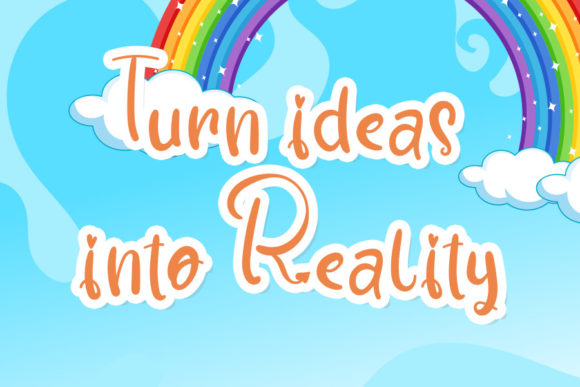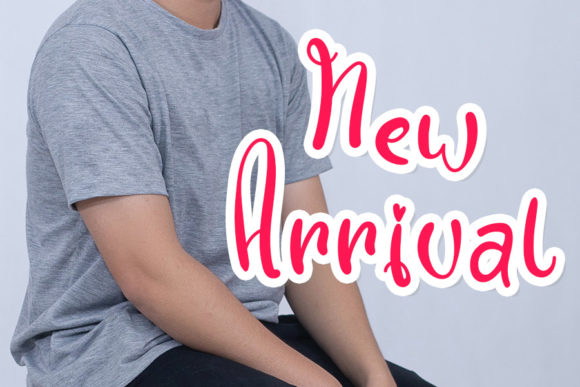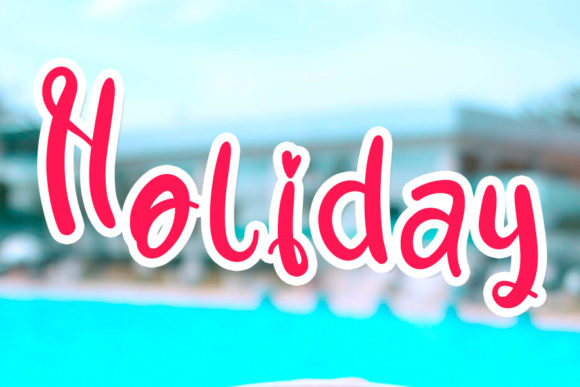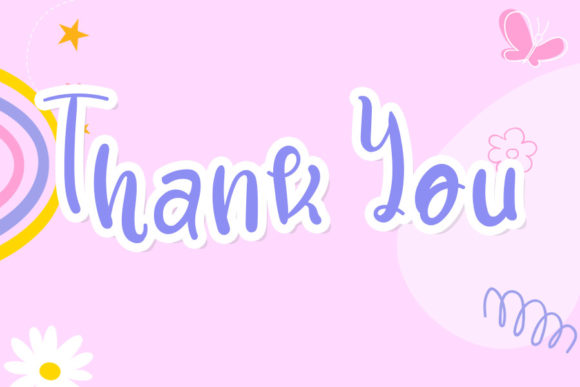
Friyay Quotes Font: Elevate Your Designs with a Touch of Whimsy and Modern Elegance
Are you on the hunt for a font that adds a dash of magic to your designs? Look no further than Friyay Quotes Font. This chic and whimsical handwritten font is here to transform your creative projects with its modern and unique style. In this article, we’ll dive into the enchanting world of Friyay Quotes, exploring its features, benefits, and the endless possibilities it offers to designers and crafters alike.
The Essence of Friyay Quotes Font
Friyay Quotes Font is more than just a typeface; it’s an experience. Imagine your designs transported to a magical world where elegance meets playfulness. This font is meticulously crafted to bring a fresh and contemporary look to your projects. Whether you’re working on branding, packaging, social media graphics, or any other creative endeavor, Friyay Quotes is designed to make your designs stand out.
Key Features of Friyay Quotes Font
- Whimsical Handwritten Style: Friyay Quotes boasts a charming, handwritten aesthetic that adds a personal touch to any design.
- Modern and Unique: Its modern approach to a classic handwritten style makes it unique and eye-catching.
- Versatility: Perfect for a wide range of projects, from digital content to print materials.
- Ease of Use: Designed to be user-friendly, making it accessible for both professional designers and hobbyists.
Friyay Quotes Font isn’t just a pretty face; it offers substantial benefits that can elevate your design work:
- Brand Differentiation: Stand out in a crowded market with a font that’s both stylish and distinctive.
- Emotional Connection: The whimsical nature of the font can help create an emotional connection with your audience.
- Time-Saving: With its comprehensive set of characters and ease of use, Friyay Quotes can significantly streamline your design process.
- Cross-Platform Compatibility: Use it across various platforms and applications without worrying about compatibility issues.
Inspiration and Examples
To truly appreciate the potential of Friyay Quotes, it’s helpful to see it in action. Here are a few ideas to get you started:
- Social Media Graphics: Add a touch of whimsy to your Instagram posts or Facebook banners.
- Branding Materials: Use Friyay Quotes for your logo, business cards, or letterheads to give your brand a friendly and approachable feel.
- DIY Projects: Perfect for crafters, this font can add a professional touch to homemade goods like wedding invitations or product labels.
Friyay Quotes Font is a game-changer for designers and crafters looking to infuse their projects with a modern, whimsical touch. Its unique style, versatility, and ease of use make it an invaluable tool in your creative arsenal. Whether you’re aiming to stand out in the design world or simply looking for a font that can add a bit of magic to your work, Friyay Quotes is an excellent choice. So why wait? Dive into the enchanting world of Friyay Quotes and let your designs shine like never before.